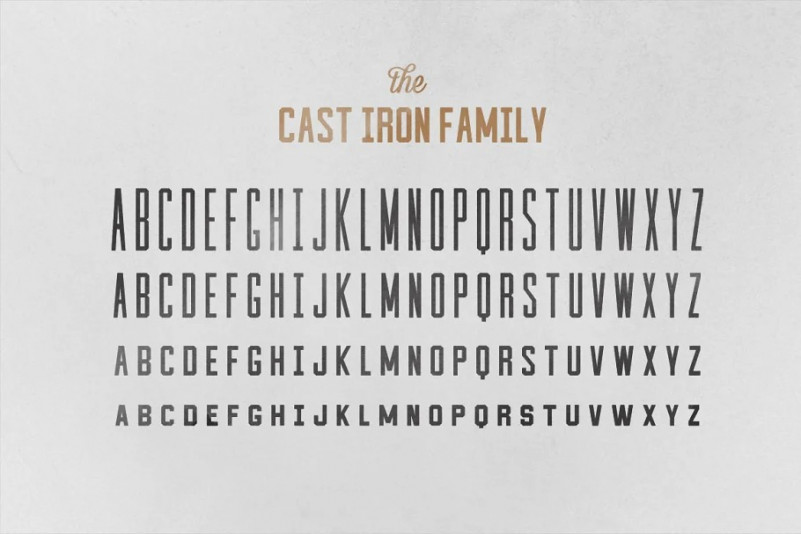
Cast Iron Display Font
A modern display typeface created by Hustle Supply Co with high contrast and condensed style, very suitable for futuristic and techno theme. This font perfectly made to be applied especially in logo, and the other various formal forms such as invitations, labels, magazines, books, greeting / wedding cards, packaging, fashion, make up, stationery, novels, labels or any type of advertising purpose.